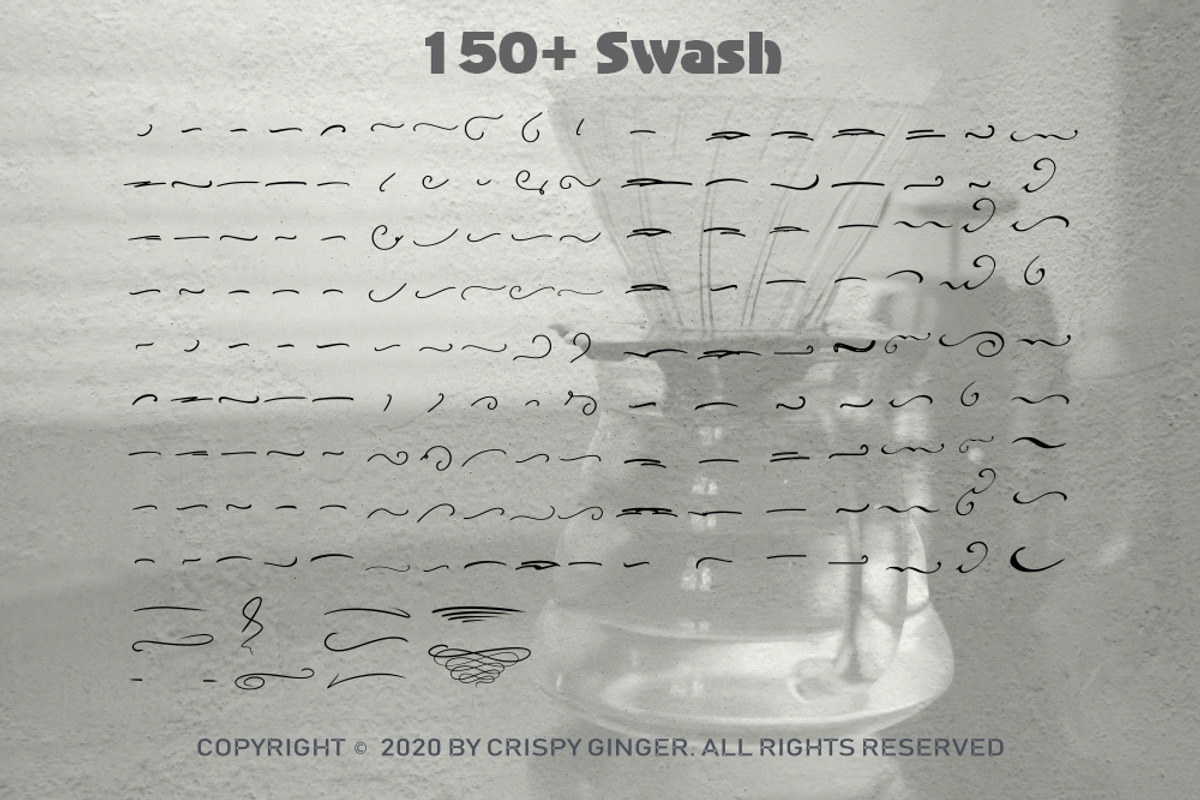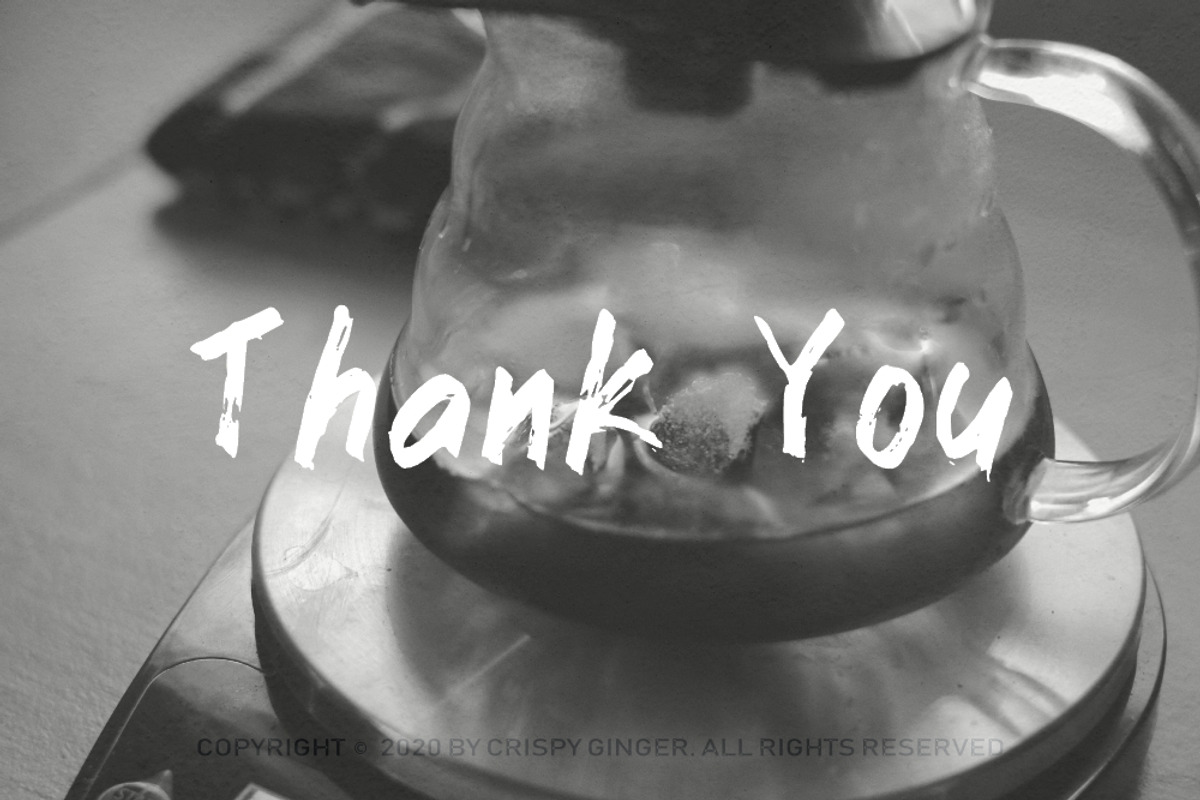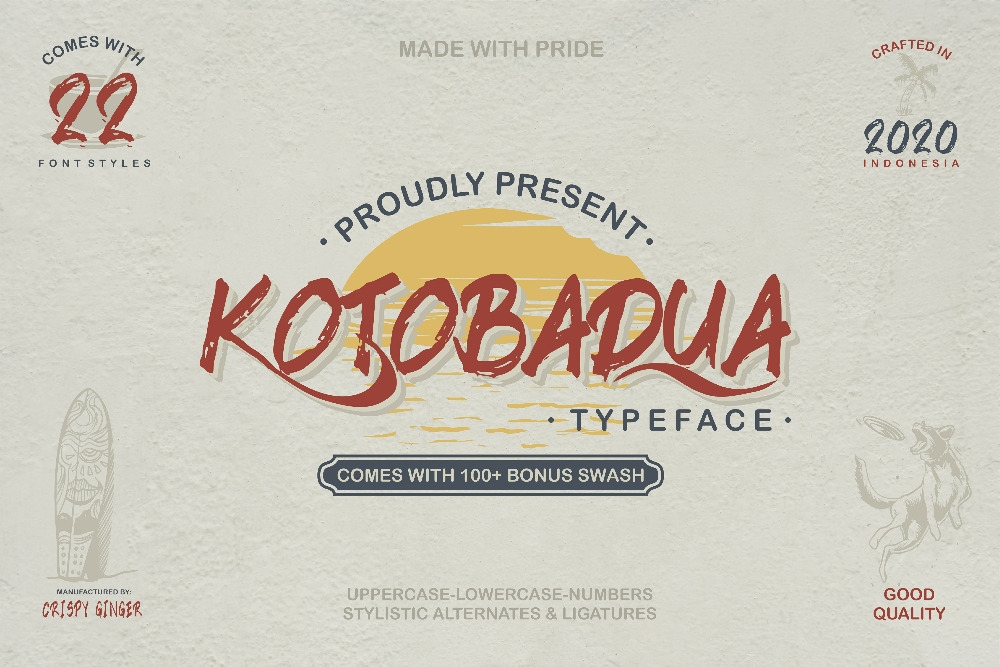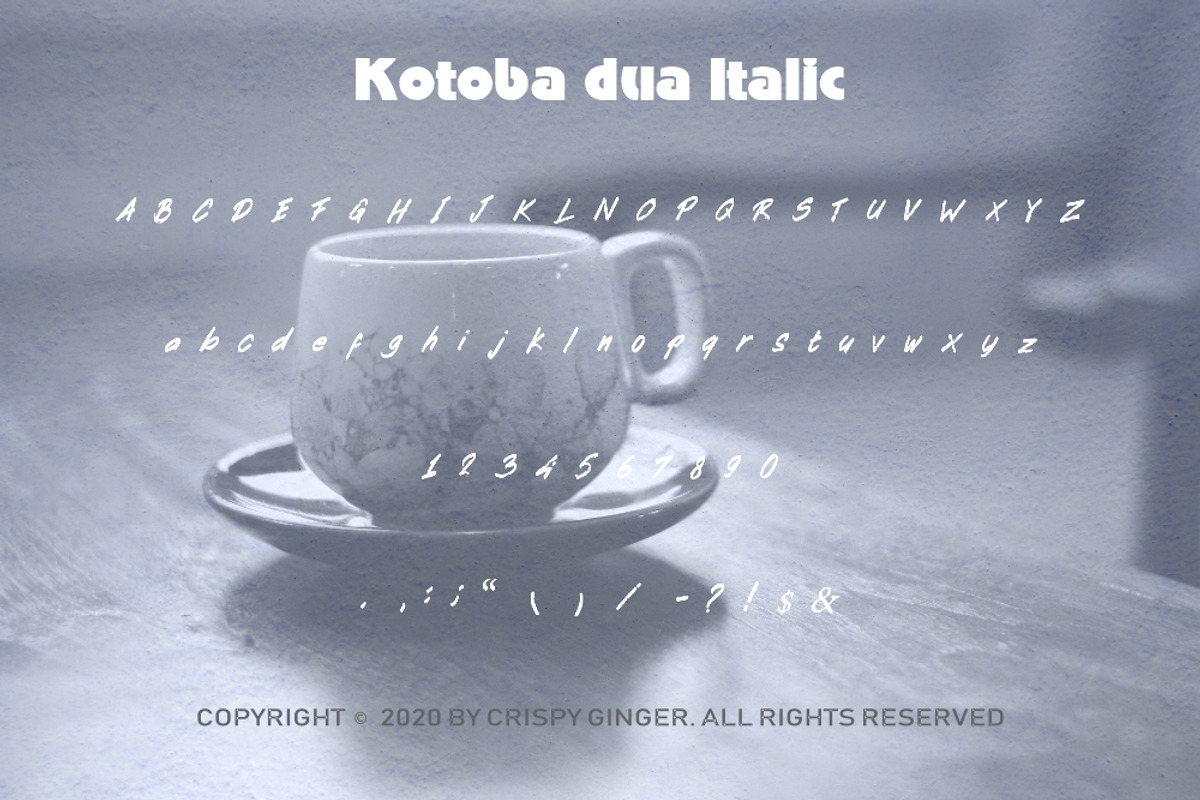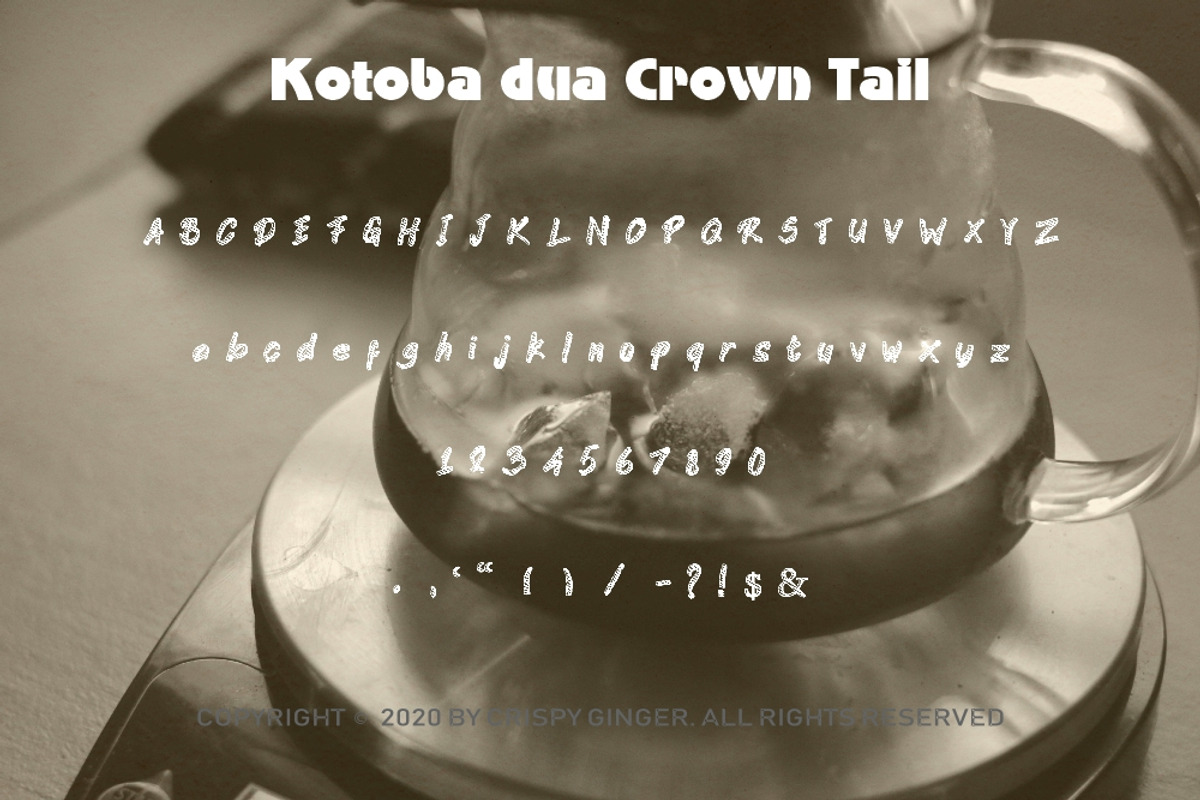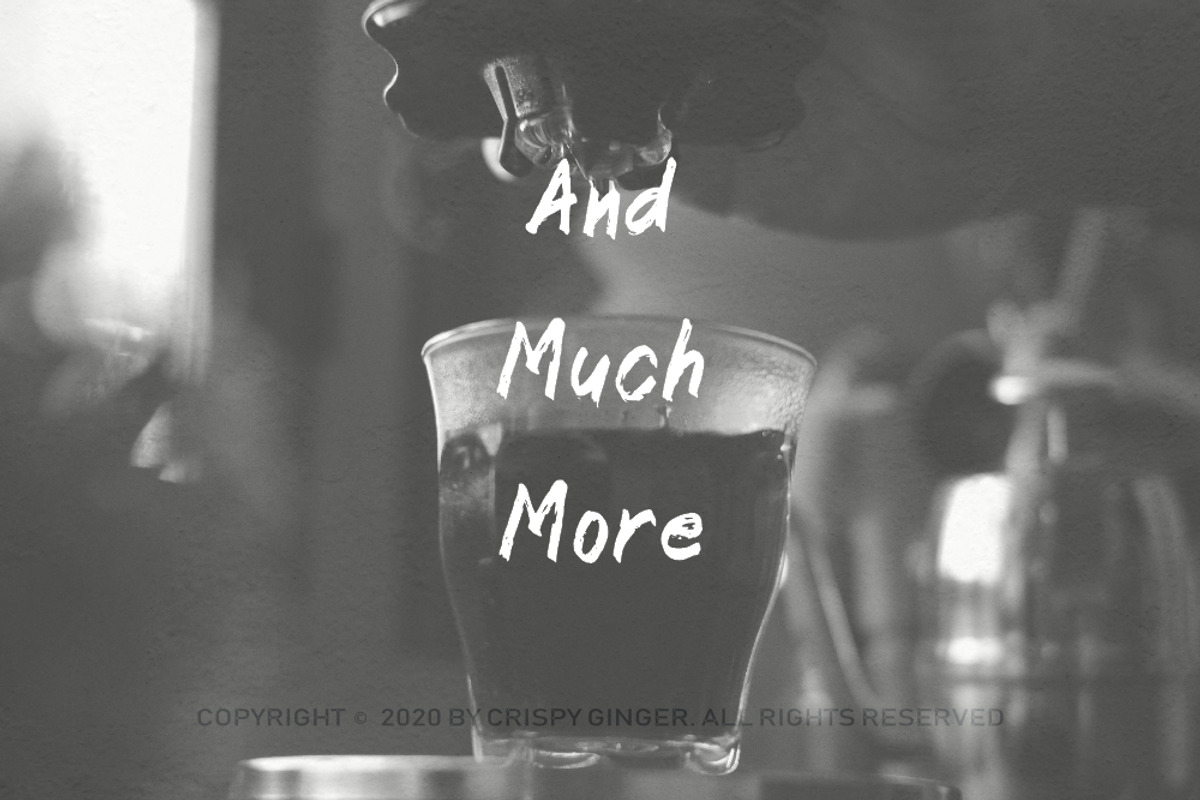
Kotoba Dua - 22 Font styles
Kotoba Dua - 22 Font styles and 150 Swashes
Kotoba dua represents the best of organic curves with sharp modern edges. Sophisticated and edgy, it's everything you want out of a display font. It looks amazing at large sizes and, also, small sizes.
- Kotoba dua
- Kotoba dua Halfmoon
- Kotoba dua Crown tail
- Kotoba dua Plakat
- Kotoba dua Dauble tail
- Kotoba dua Giant
- Kotoba dua Lace
- Kotoba dua Grass
- Kotoba dua Pair
- Kotoba dua Blonde
- Kotoba dua Tuxedo
- Kotoba dua Italic
- Kotoba dua Halfmoon Italic
- Kotoba dua Crown tail Italic
- Kotoba dua Plakat Italic
- Kotoba dua Dauble tail Italic
- Kotoba dua Giant Italic
- Kotoba dua Lace Italic
- Kotoba dua Grass Italic
- Kotoba dua Pair Italic
- Kotoba dua Blonde Italic
- Kotoba dua Tuxedo Italic
the total number is 22 font styles and 150+ swashes. Looks great packaged on wrapping, bottles and jars or digitally on websites, social and apps or printed on newspapers, magazines and flyers.